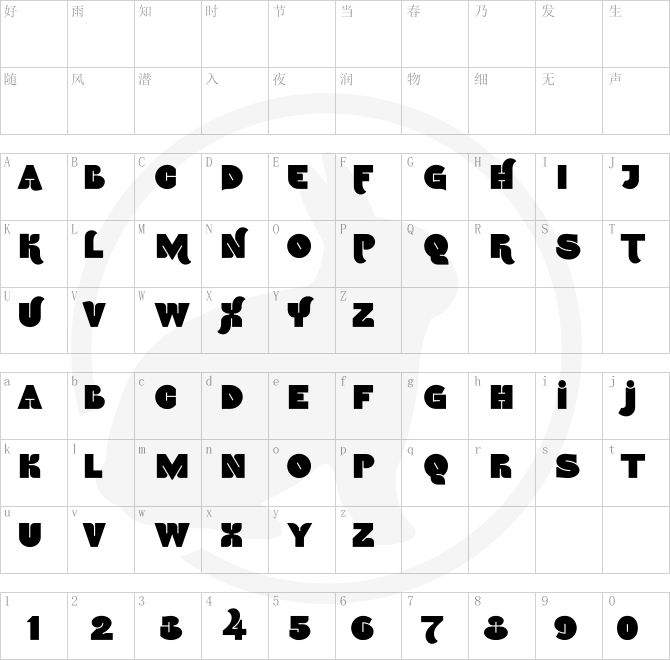
- Font Name:NamskoutIn
NamskoutIn.otf is a very beautiful artistic font, NamskoutIn.otf is widely used in the design and printing of various books and pictures,NamskoutIn.otf has a strong visual impact,NamskoutIn.otf is a commonly used font in newspapers, magazines and books, and is used in posters, e-commerce Poster design, store design, logo design, font design and other fields.NamskoutIn.